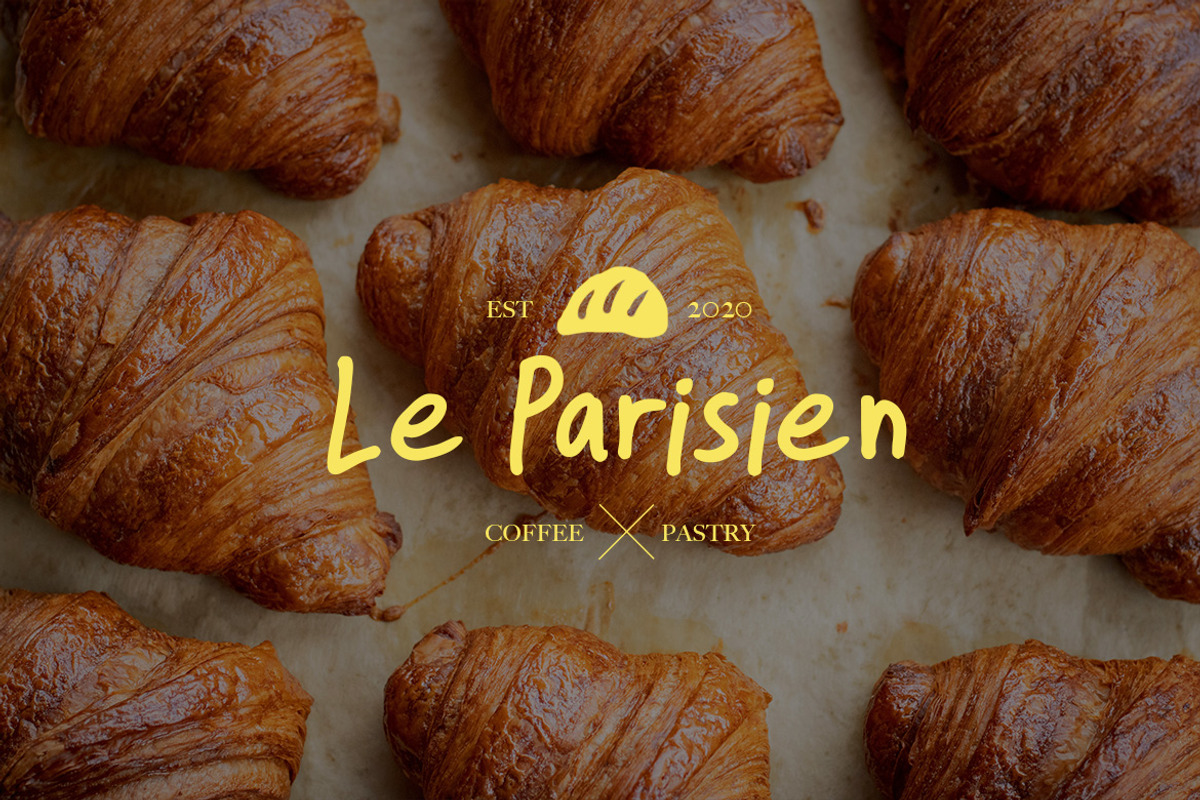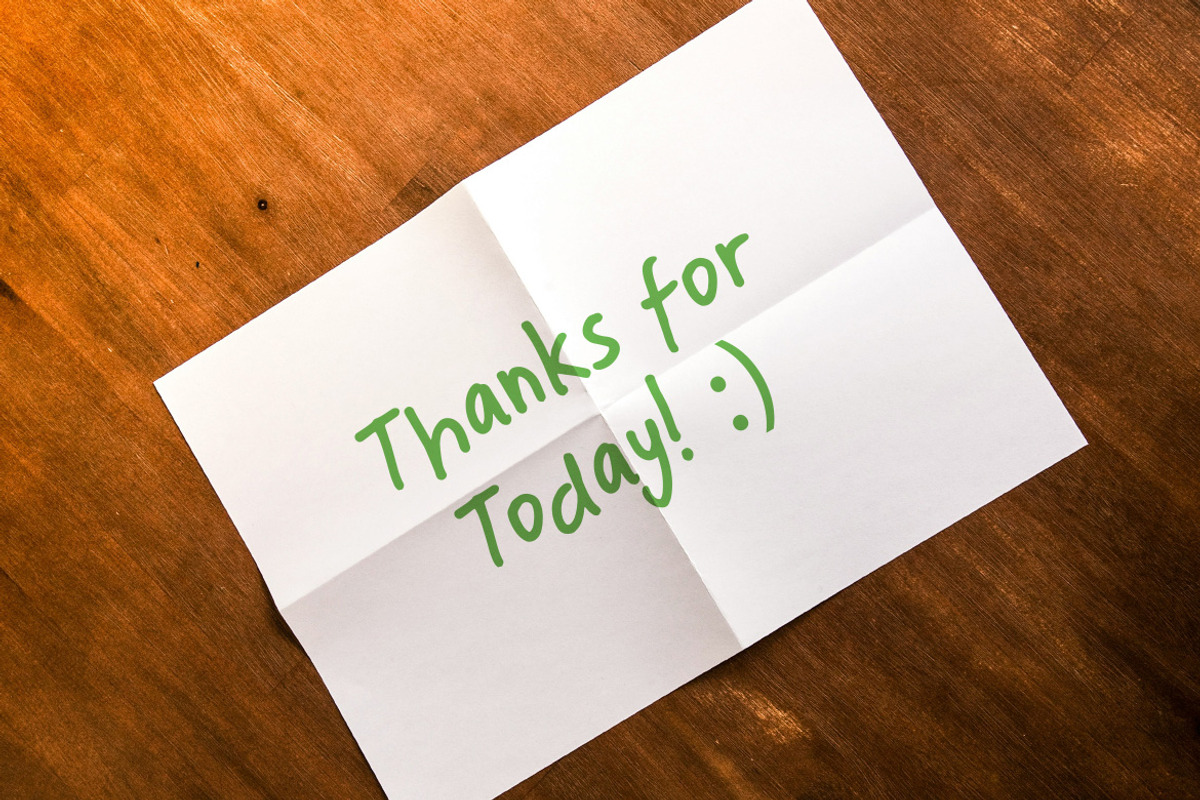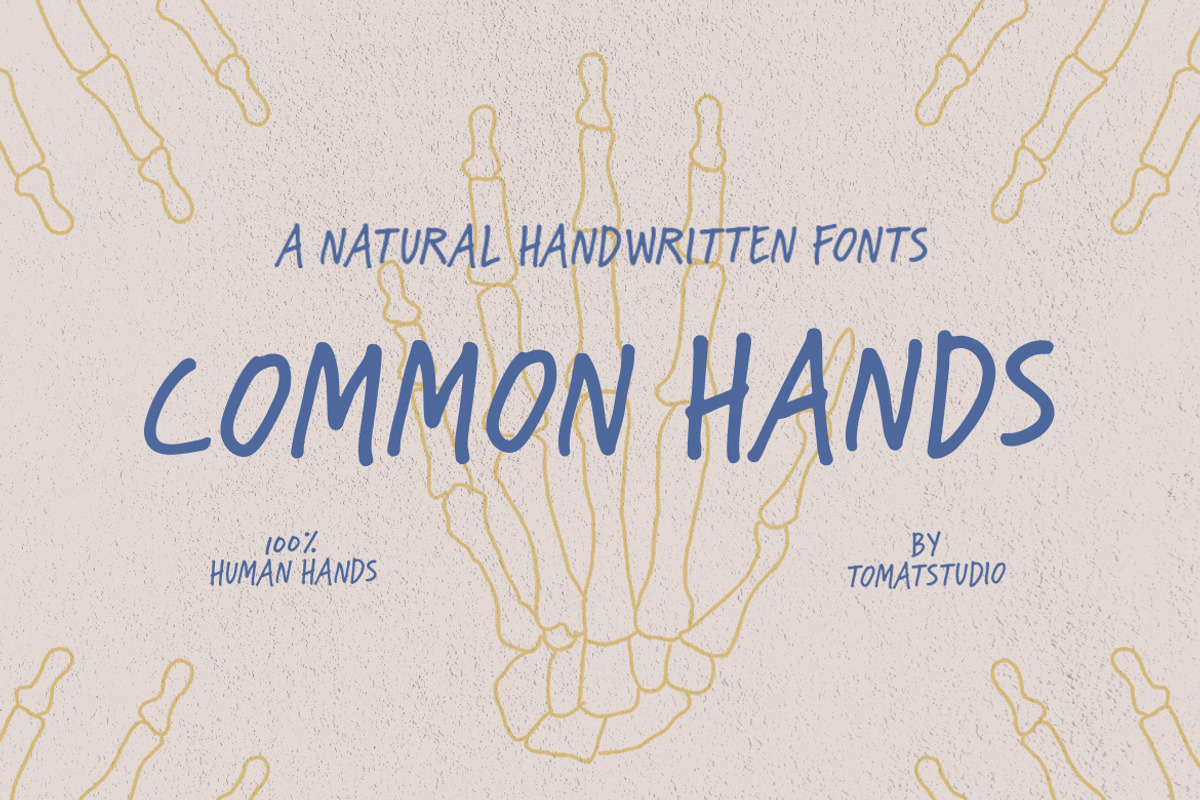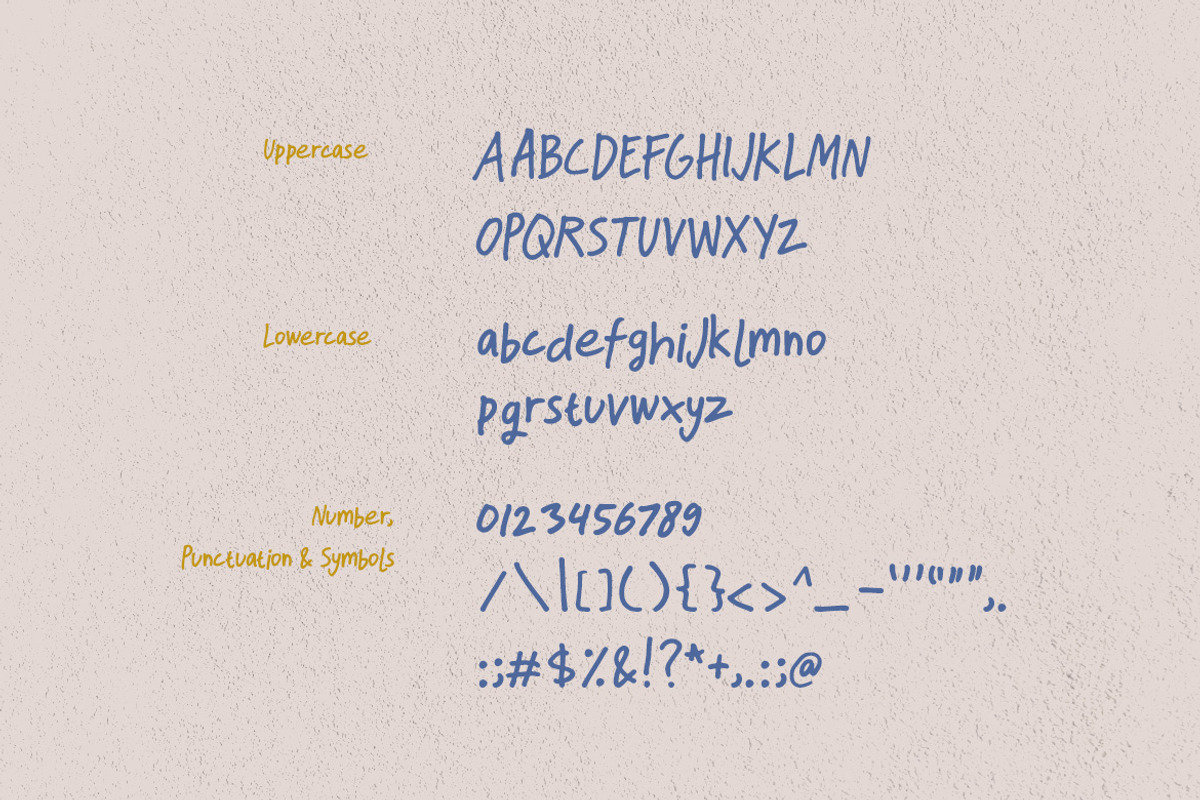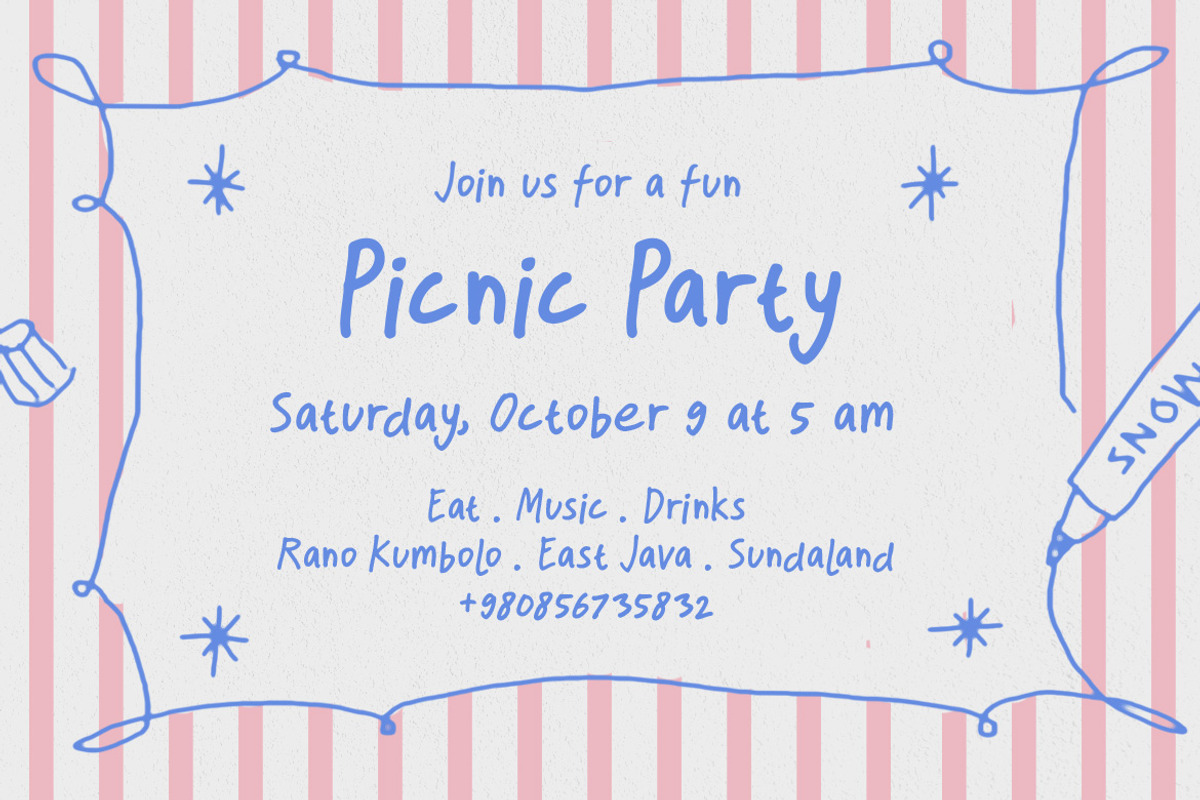
Common Hands Handwritten Fonts
Common Hands is a handwritten font created with real markers, capturing the warmth, honesty, and natural flow of human strokes. Each letter carries the authentic texture of hand-drawn lines, making the font feel alive, personal, and approachable. Inspired by everyday marker writing, embracing natural imperfections that bring character.